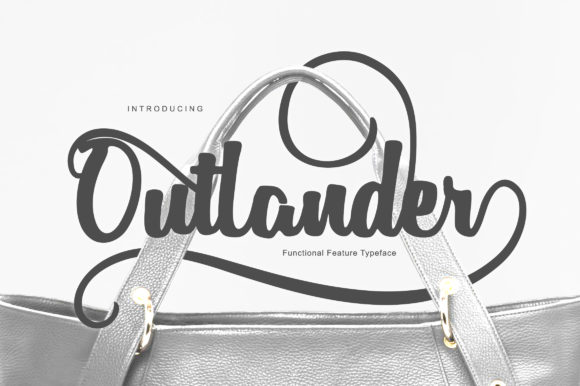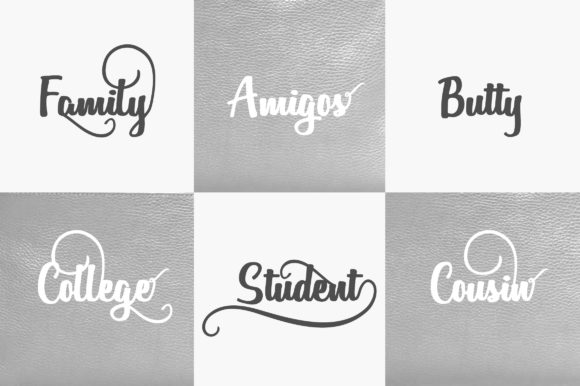
Outlander Font
About Outlander Font
Outlander contains a big selection of bold swashes and will guarantee to add a distinct twist to any design project.